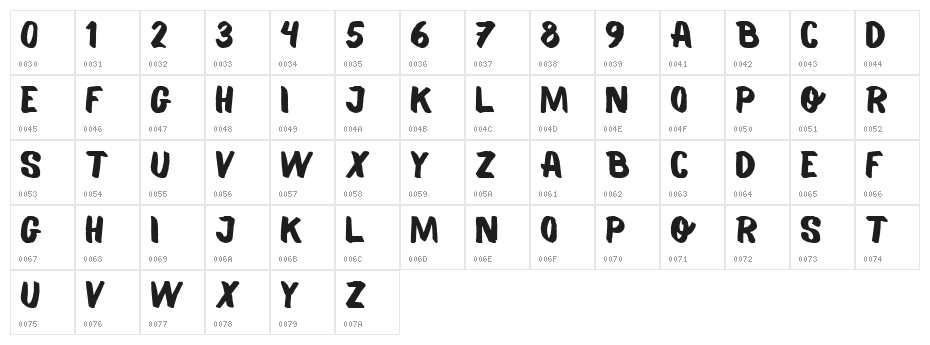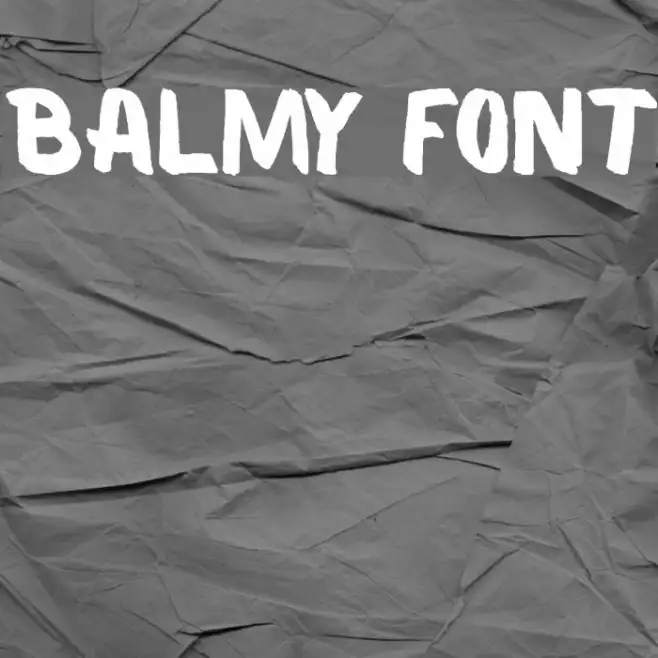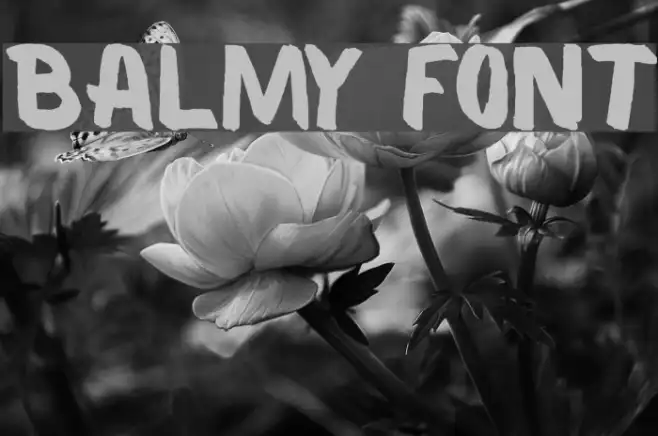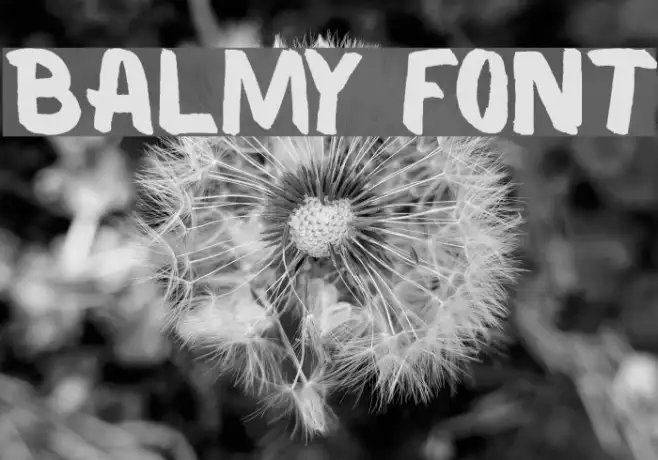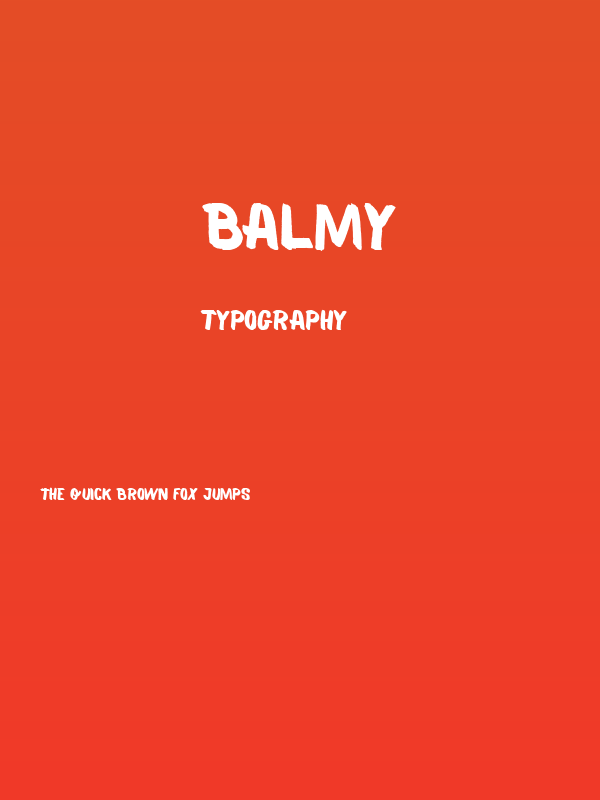
Balmy Font
Balmy Description
This font exudes a bold, energetic vibe with its thick, brush-like strokes and slightly irregular edges, giving it a hand-painted appearance. The uppercase and lowercase letters maintain a consistent weight, creating a cohesive look across the alphabet. The numbers and special characters follow the same stylistic approach, ensuring uniformity. The overall design is playful yet assertive, making it suitable for projects that require a strong visual impact. Its unique style is both modern and artistic, ideal for capturing attention.
| Proposed Projects | Ideal for posters, branding, packaging, and creative headlines. |